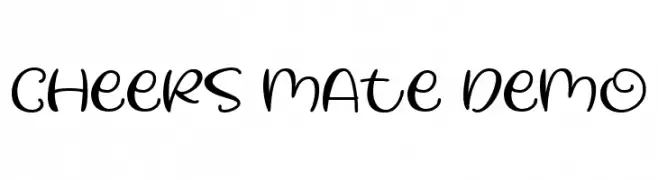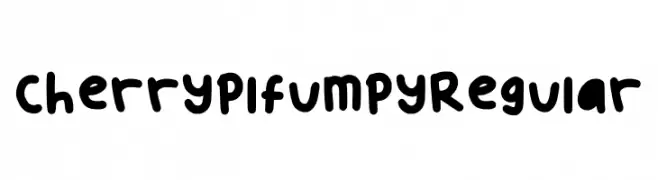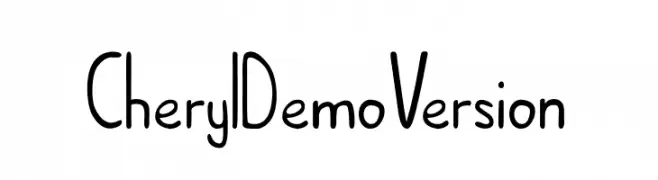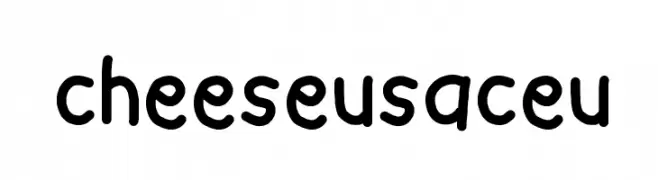
( Fonts by epiclinez )
A playful, whimsical font with flowing, cursive-like strokes and unique character shapes.
( Fonts by Viola Type )
A bold, handwritten font with a playful and casual style.
( shizumiyuki.tumblr.com )
A playful, hand-drawn font with rounded, consistent strokes and a casual style.
( Fonts by Maulana Creative )
A playful, casual handwritten font with smooth, flowing lines and a relaxed appearance.
( Fonts by Jazmin Mendez )
Casual handwritten font with a friendly style.
( Fonts by kimwinnie )
A playful, bold typeface with rounded, bubbly characters and a hand-drawn feel.
( Fonts by Typocrisy Studio )
A playful, handwritten font with rounded, consistent strokes and a casual vibe.